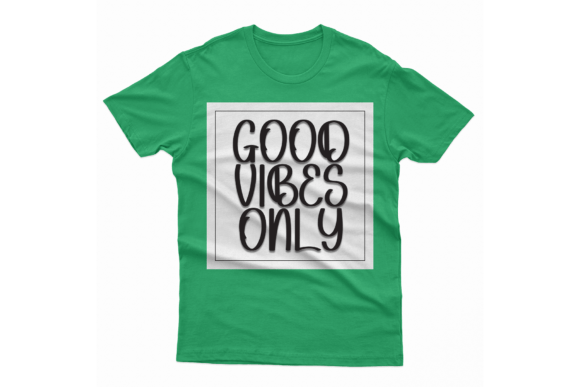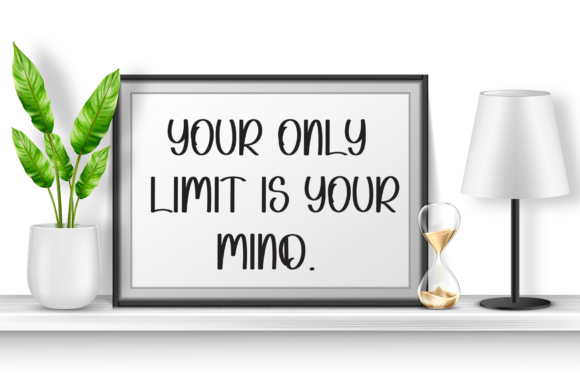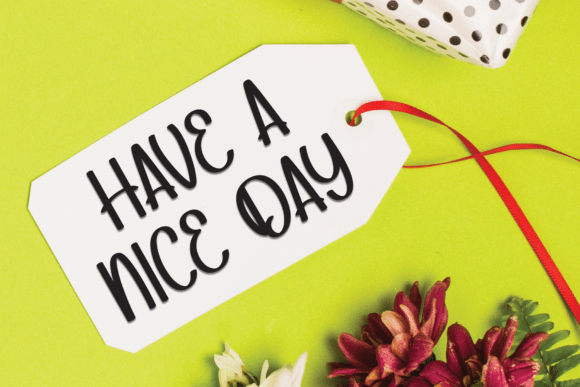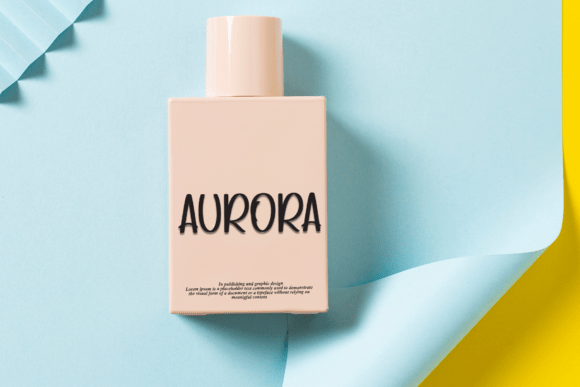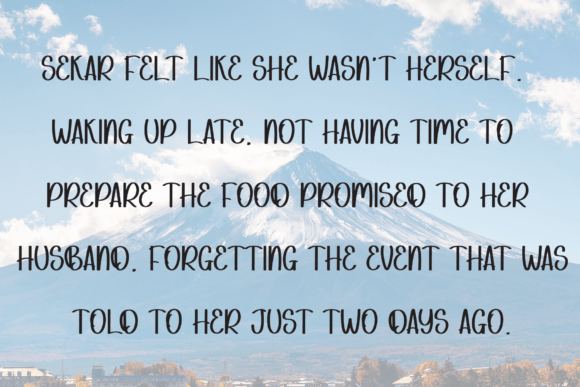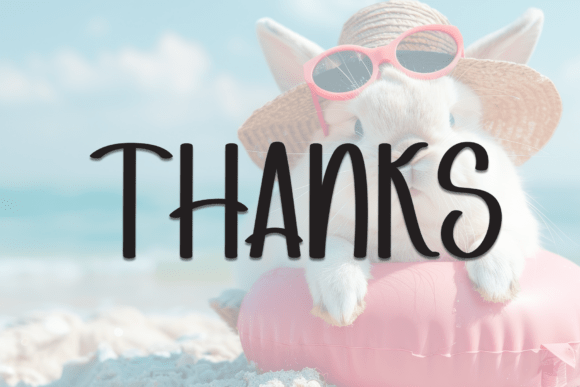
Discover the Delightful Bunny Summer Font: A Perfect Addition to Your Design Arsenal
As a designer, I’ve had my fair share of moments where finding the right font for a project felt like searching for a needle in a haystack. I recall working on a wedding invitation design for a dear friend, wanting to infuse it with a playful yet romantic vibe. That’s when I stumbled upon the charming “Bunny Summer” font. It was love at first sight! 💕
Radiating warmth and charm, Bunny Summer is a tactfully handwritten display font that seamlessly infuses a mirthful essence into every design where it’s applied. In this article, I’ll share my experience with this delightful font, its features, and how to make the most of it in your designs.
An Honest Review of Bunny Summer Font
What I Love About Bunny Summer ✨
- Playful and adorable appeal that adds a touch of whimsy to any design 🎉
- Perfect for wedding invitations, greeting cards, and other joyous tidings 🎂
- Seamlessly blends with various design styles, from rustic to elegant 🌈
- Easy to read and understand, even in smaller font sizes 📚
- Supports OpenType features, glyphs, and stylistic alternates for added creativity 🤩
While Bunny Summer is an excellent font, there are a few minor limitations to consider:
- May not be suitable for very formal or corporate designs, as it leans towards a more playful tone 💼
- Some characters may require manual kerning for optimal spacing 📊
The Story Behind Bunny Summer Font
Bunny Summer was designed with the intention of capturing the carefree essence of summer. The font’s creator aimed to craft a playful, yet elegant typeface that would bring joy to designs. Inspired by handwritten notes and summer-themed illustrations, Bunny Summer was born to add a delightful touch to various design narratives.
Q: What type of designs is Bunny Summer best suited for?
A: Bunny Summer is perfect for wedding invitations, greeting cards, and other joyous tidings. Its playful and adorable appeal makes it suitable for various creative projects.